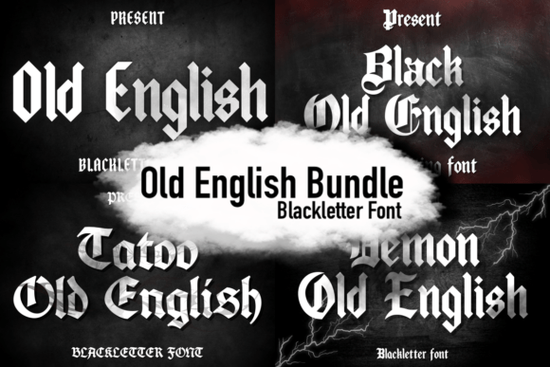
If you’ve ever needed a font that instantly adds gravitas, mystery, or a touch of rebellion to your design, blackletter styles are hard to beat. The Old English Bundle Font gathers several distinct takes on this historic letterform each one rooted in medieval calligraphy but tuned for modern creative use. Whether you're designing band merch, tattoo flash, vintage-style posters, or branding with an edge, this bundle gives you multiple options without hunting through dozens of single-font listings.
Blackletter fonts like those in the Old English Bundle trace their origins to Gothic script used in European manuscripts and early printing. Over time, they’ve been adopted by subcultures from punk rock to heavy metal and remain popular for projects that demand boldness and character. What makes this bundle especially useful is its range: it includes variations labeled Tattoo, Black, and Demon, each offering slightly different weights, serifs, and flourishes while staying true to the core aesthetic.
What kinds of projects work best with Old English fonts?
These fonts shine when you want to convey tradition, intensity, or theatrical flair. Here’s where they’re commonly used:
- Tattoo designs – Clean yet ornate lines translate well to skin art.
- Band logos and album covers – Especially in metal, hardcore, or goth genres.
- Vintage signage and posters – Think apothecary labels, pub signs, or haunted house flyers.
- Custom apparel and merch – Hoodies, patches, and stickers with attitude.
- Branding for niche businesses – Breweries, barbershops, or occult-themed shops.
Because of their dense, angular forms, Old English fonts aren’t ideal for body text or small sizes. But as display type headlines, emblems, monograms they command attention without saying a word.
How does this bundle compare to other blackletter fonts?
Many blackletter fonts lean heavily into either historical accuracy or modern stylization. The Old English Bundle strikes a balance. For example, if you prefer something slightly more refined with classic proportions, you might also consider the Frostbane font, which offers elegant contrast and sharp terminals. On the darker, more dramatic end, the Gothic Vampire font amps up the theatricality with exaggerated strokes great for horror-themed projects.
Meanwhile, the Old English Bundle gives you versatility in one download. Need a cleaner version for a logo? Use the “Black” style. Want something grittier for a tattoo stencil? The “Demon” variant delivers extra aggression. Having multiple weights and alternates means you can test different moods without switching font families.
Are these fonts easy to use for beginners?
One tip: because blackletter fonts often have tight spacing and intricate details, always preview your text at the actual output size. A design that looks crisp on screen might become muddy when printed small or embroidered on fabric. When in doubt, simplify the layout and give the letters room to breathe.
If you’re curious about the history behind these letterforms, the Old English Bundle draws from centuries-old scribal traditions but you don’t need a history degree to use it effectively. Same goes for Frostbane and Gothic Vampire; they’re designed for creators who value both authenticity and practicality.
- Confirm your project needs bold, decorative type not readable paragraphs.
- Test readability at your final output size especially for tattoos or small merchandise.
- Pair wisely: Old English fonts work best alone or with very simple sans-serifs (like Helvetica or Arial) for contrast.
If your next project calls for heritage, drama, or unapologetic style, the Old English Bundle Font gives you several proven options in one reliable package no guesswork required.